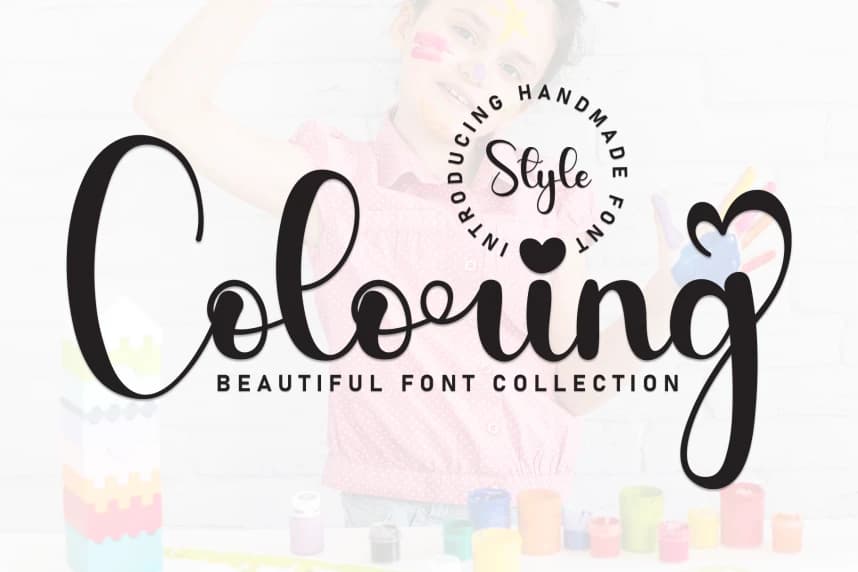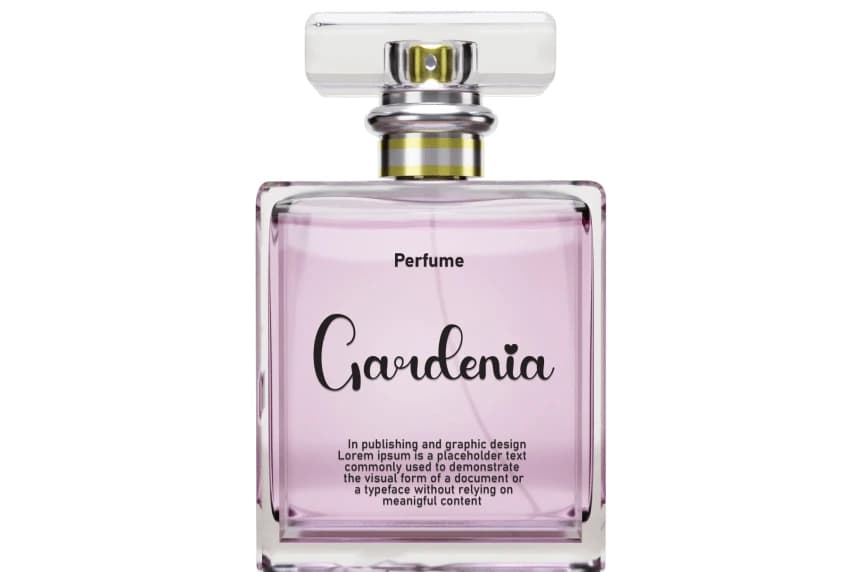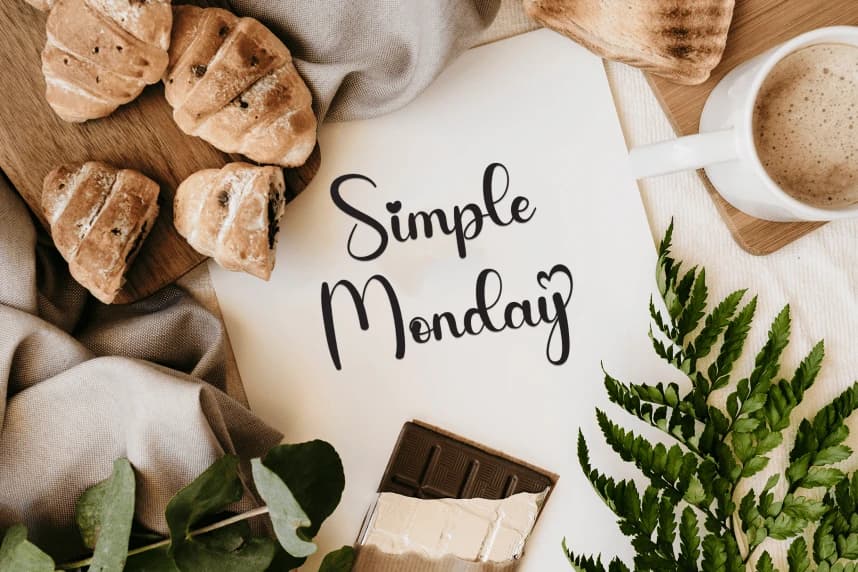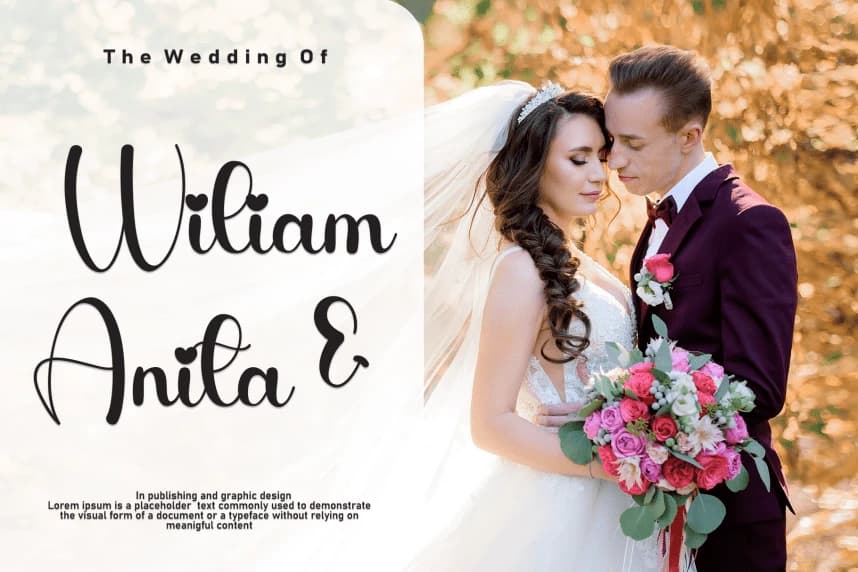
Coloring – Natural Script Handwritten Font
Coloring – Natural Script Handwritten Font is a sweet and friendly handwritten display font. Cute and fun, this font is ideal for writing wedding invitations, cards, or any other design that might need a playful touch!